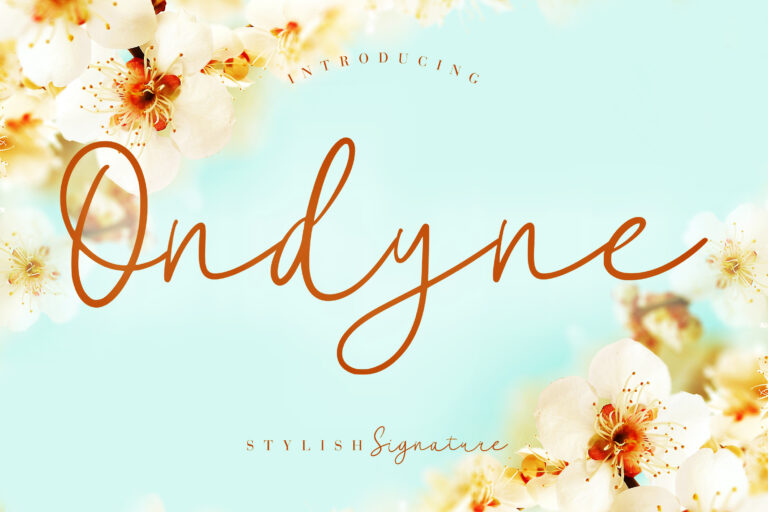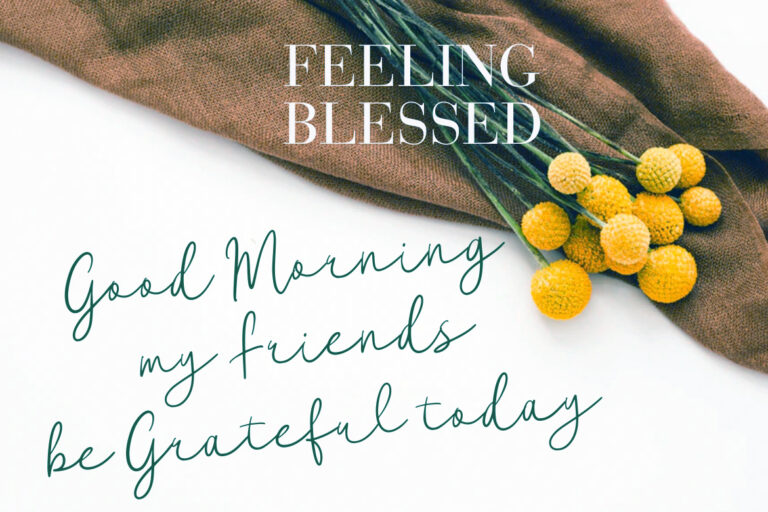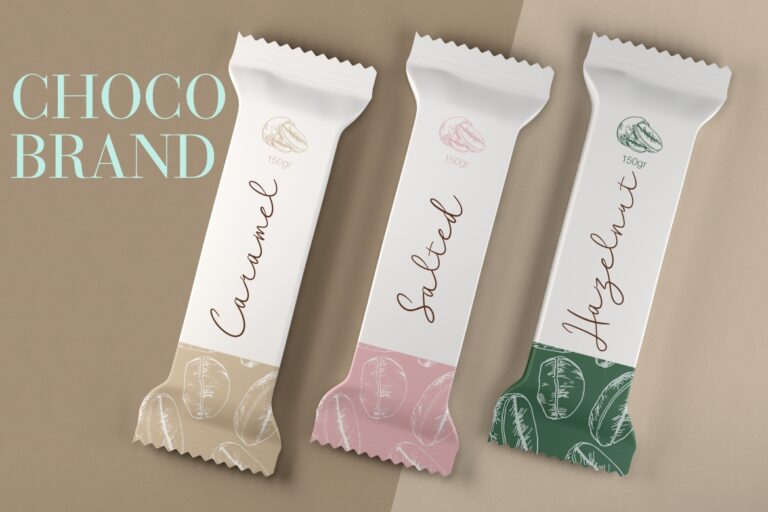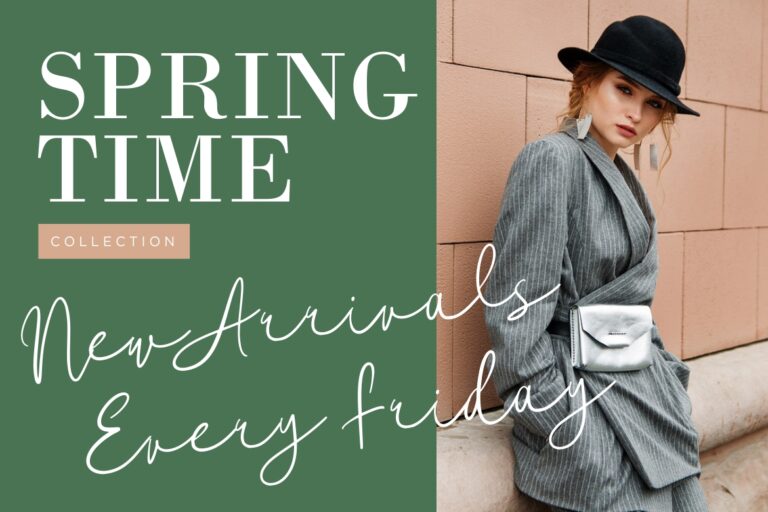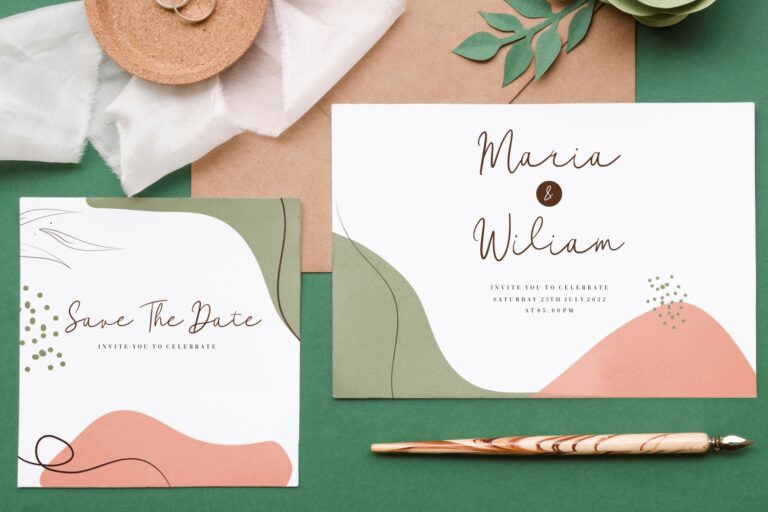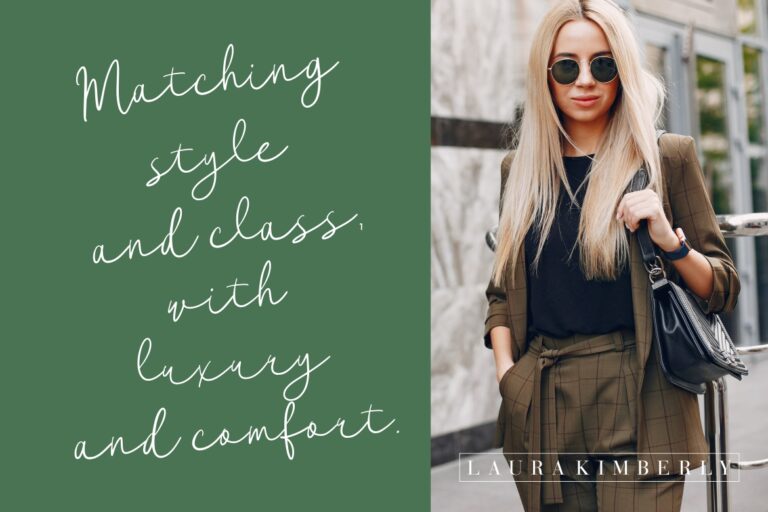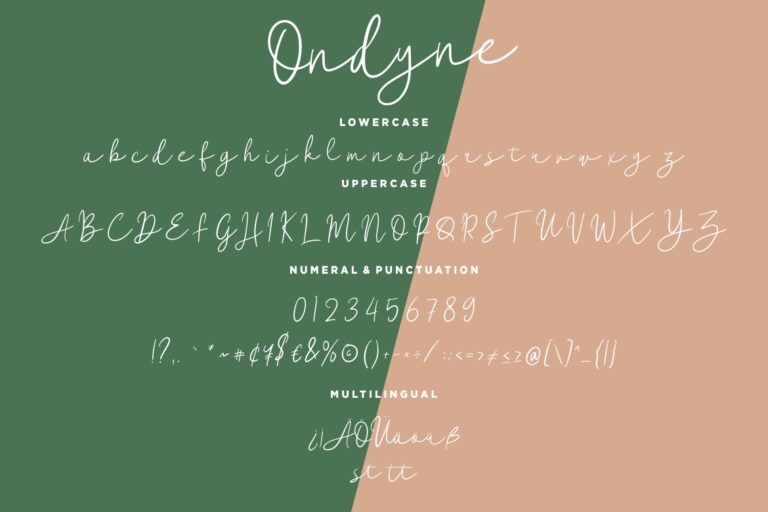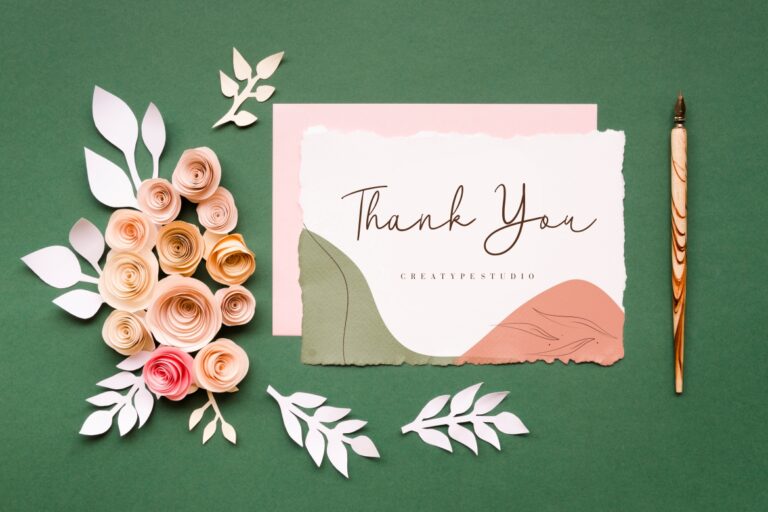
Ondyne is stylish signature font make looks elegant, classy and touch of luxury and stylish.
Ondyne is perfect for branding projects, logo, wedding designs, social media posts, advertisements, product packaging, product designs, label, photography, watermark, invitation, stationery and any projects that need handwriting taste.
• Standard glyphs
• Ligature
• Fonts include multilingual support for; ä ö ü Ä Ö Ü ß ¿ ¡
Ondyne Stylish Signature